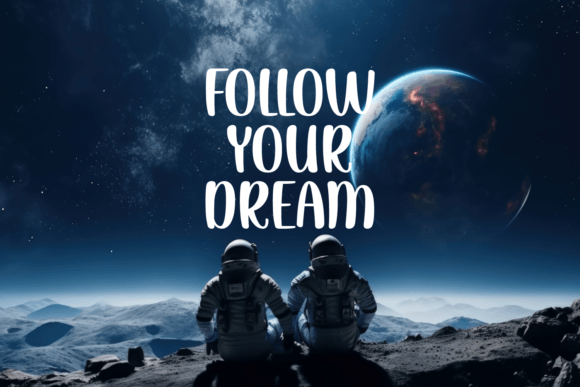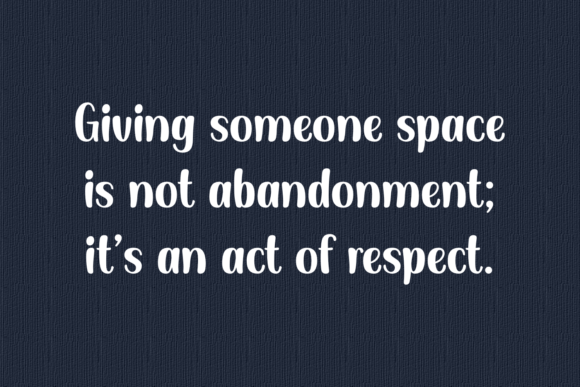
Introducing Blank Space Font: The Ultimate Choice for Simple yet Effective Design
In the world of typography, fonts play a crucial role in conveying messages, evoking emotions, and creating lasting impressions. For designers and crafters, finding the right font can make all the difference in achieving their creative goals. This is where Blank Space Font comes in – a simple handwritten font that has been gaining popularity for its straightforward and minimalist approach.
What is Blank Space Font?
Blank Space Font is a sans-serif font that embodies the principles of simplicity and readability. With its clean lines and unadorned letterforms, this font offers a versatile and practical option for a wide range of design projects. Whether you’re working on branding, editorial design, web design, or signage, Blank Space Font provides a blank canvas for designers to communicate effectively and efficiently with their audience.
Key Features of Blank Space Font
- Clean and Minimalist Design: Blank Space Font boasts a clean and minimalist design that ensures clarity and legibility, even at smaller font sizes.
- Simple Handwritten Style: The font’s simple handwritten style makes it perfect for designs that require a personal touch.
- Versatile and Practical: Blank Space Font is suitable for a wide range of design projects, from digital applications to print materials.
- Easy to Read: The font’s straightforward and unadorned letterforms make it easy to read, even for extended periods.
Uses of Blank Space Font
Blank Space Font is an incredibly versatile font that can be used in various design projects, including:
- Branding: Use Blank Space Font to create simple yet effective logos, business cards, and letterheads that convey your brand’s message.
- Editorial Design: The font’s clean and minimalist design makes it perfect for editorial design projects, such as magazines, newspapers, and books.
- Web Design: Blank Space Font is optimized for digital use, making it an excellent choice for websites, blogs, and mobile applications.
- Signage: The font’s simple and easy-to-read design makes it suitable for signage, such as billboards, posters, and banners.
Benefits of Using Blank Space Font
Using Blank Space Font offers several benefits, including:
- Improved Readability: The font’s clean and minimalist design ensures that your message is conveyed clearly and effectively.
- Enhanced Versatility: Blank Space Font can be used in various design projects, making it a valuable addition to your font library.
- Time-Saving: The font’s simple design makes it easy to work with, saving you time and effort in your design projects.
- Professional Look: Blank Space Font gives your designs a professional and polished look, making it perfect for businesses and individuals alike.
In conclusion, Blank Space Font is a simple yet effective font that offers a wide range of benefits for designers and crafters. Its clean and minimalist design, simple handwritten style, and versatility make it an excellent choice for various design projects. Whether you’re working on branding, editorial design, web design, or signage, Blank Space Font provides a blank canvas for you to communicate effectively and efficiently with your audience.
So, if you’re looking for a font that is easy to read, versatile, and professional, look no further than Blank Space Font. With its simplicity and practicality, this font is sure to become a staple in your font library.